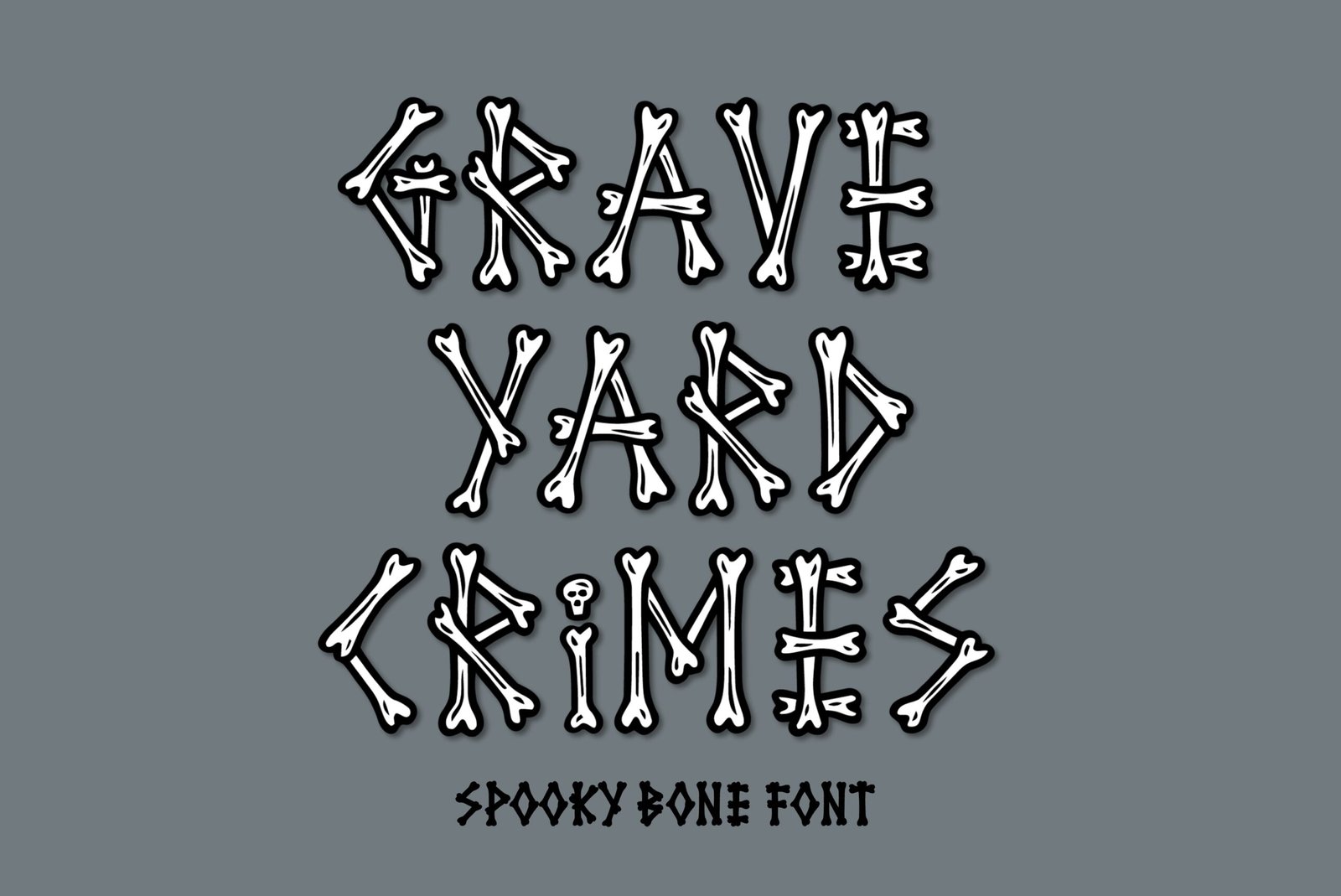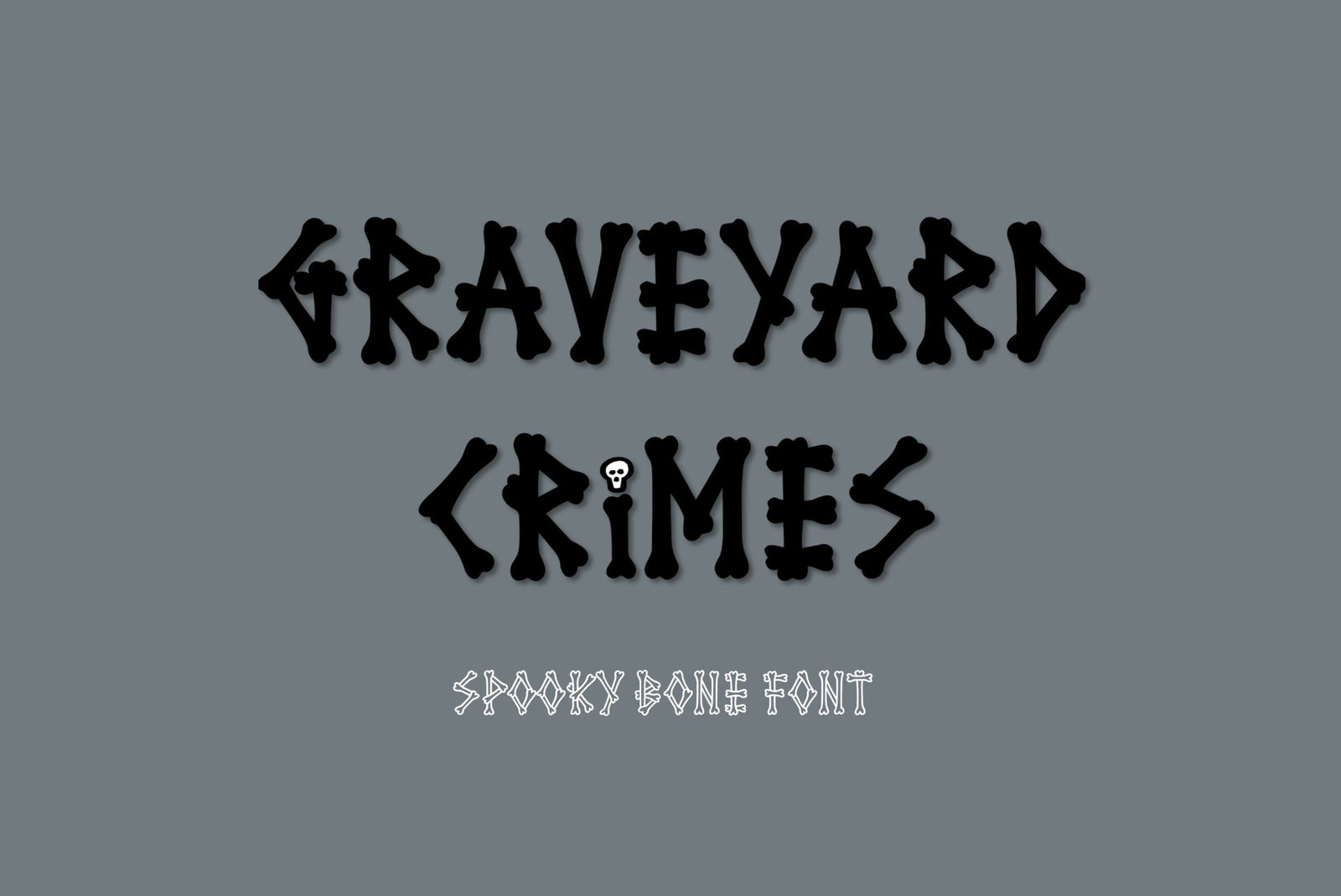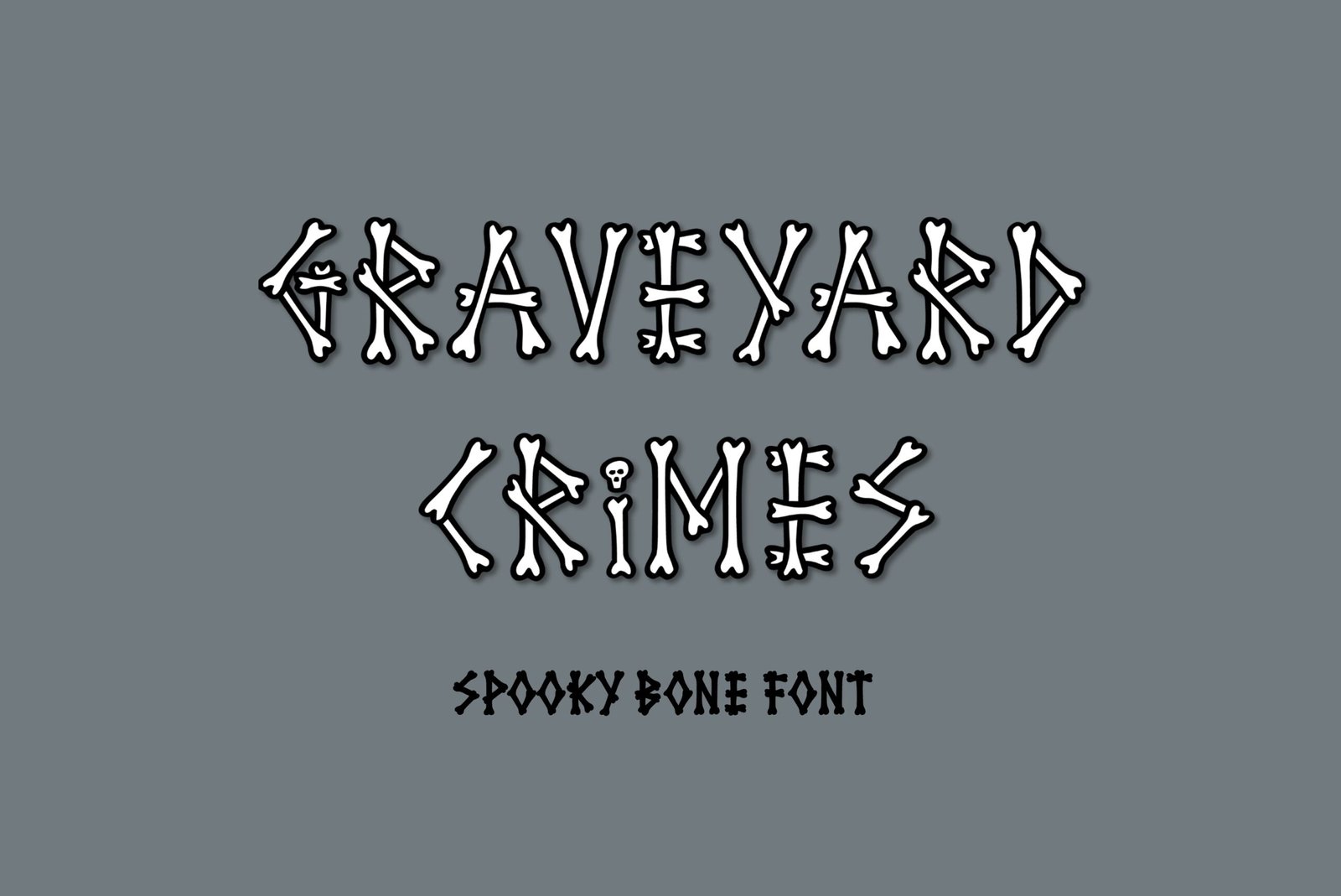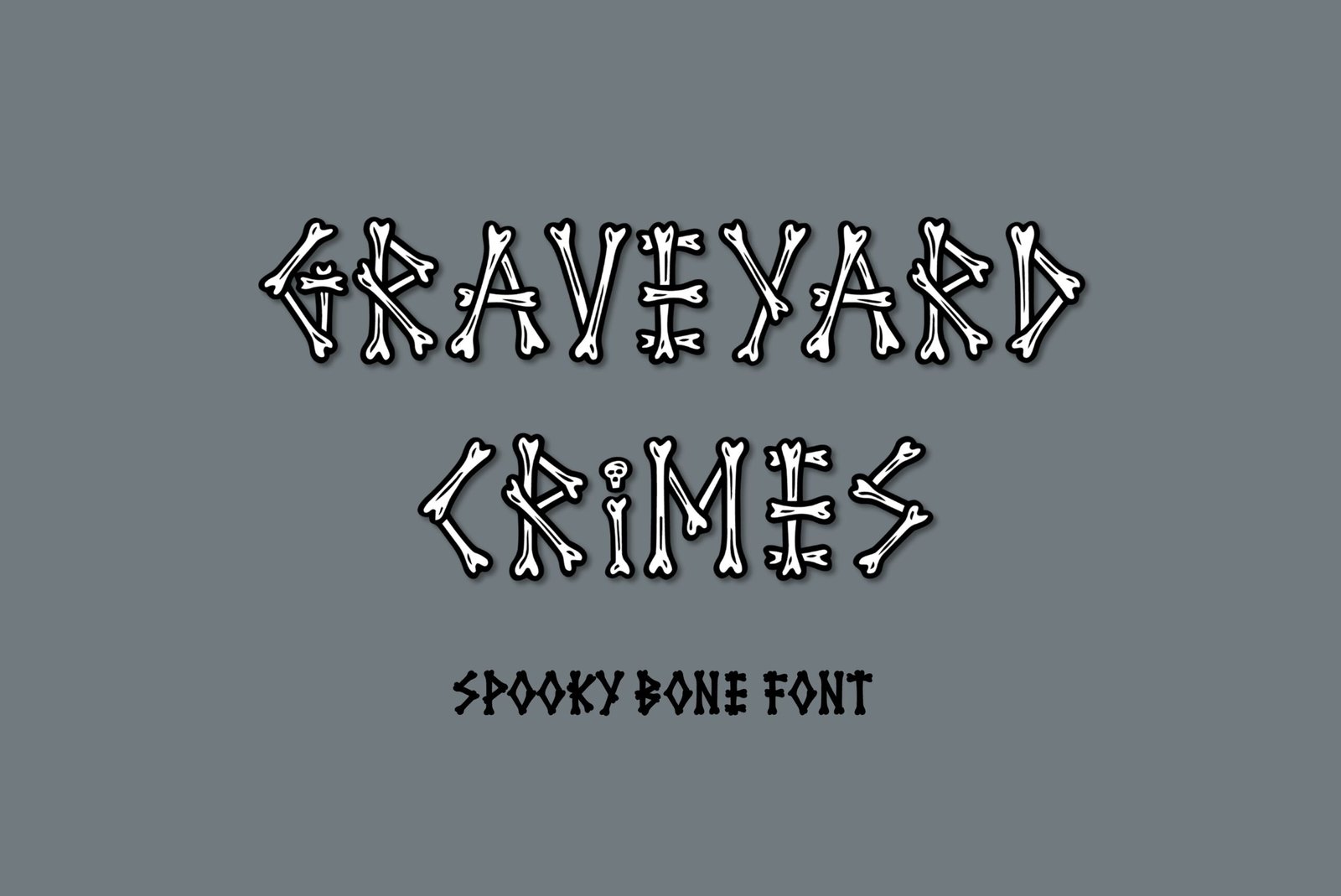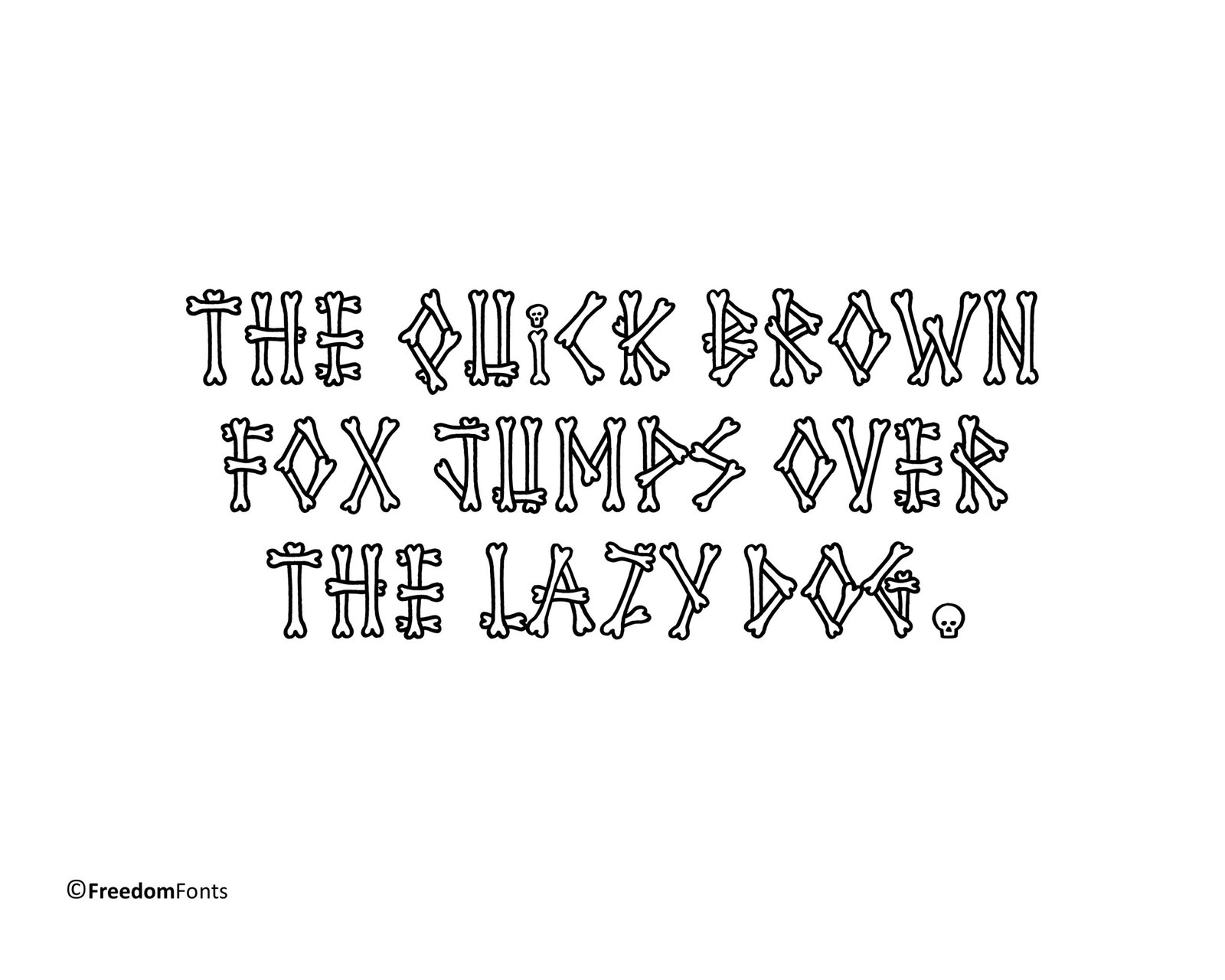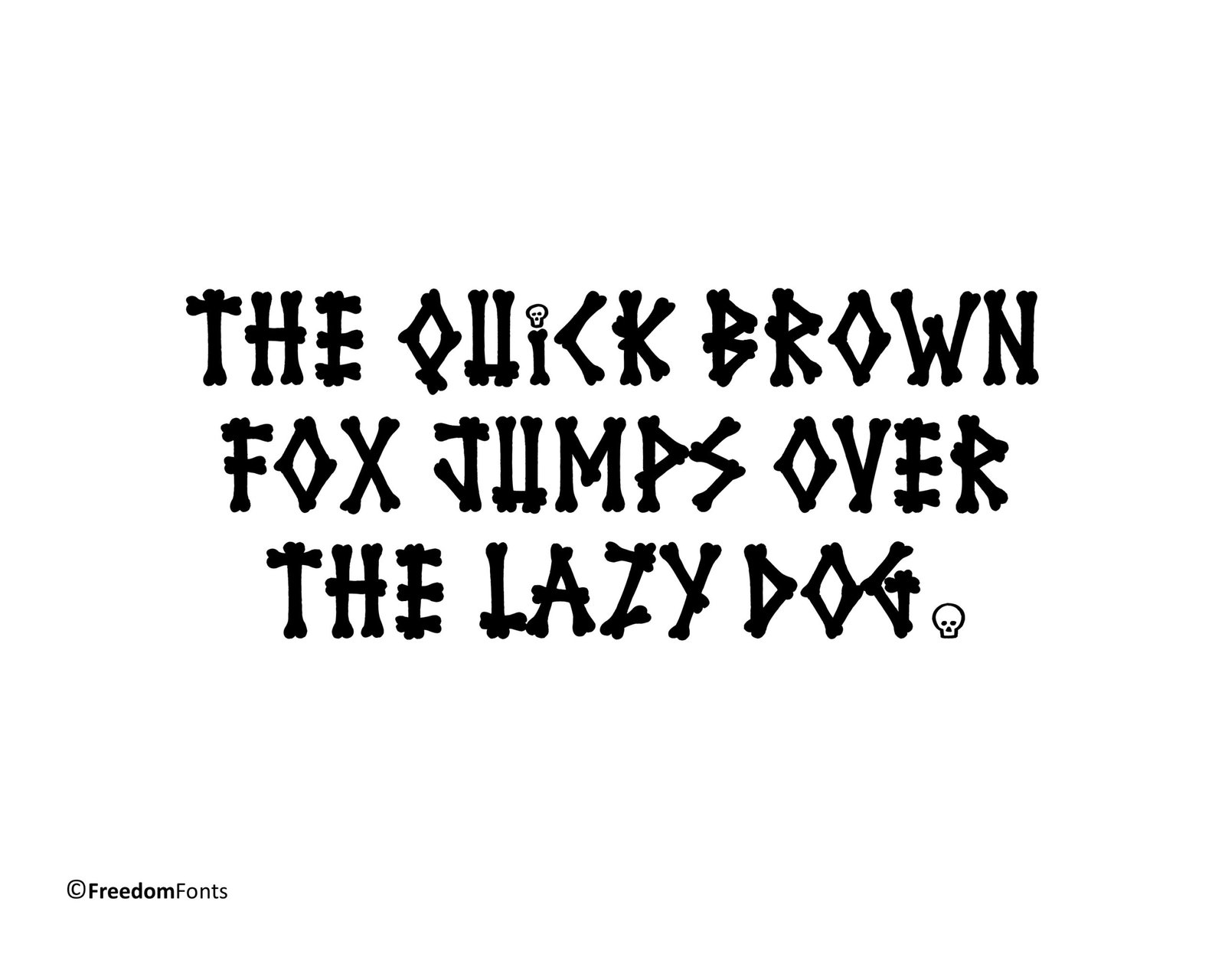
Graveyard Crimes Font
Spooky Bones font. “Graveyard Crimes”. Perfect for advertising and display purposes, including banners, book covers, shirts, posters, logos and much more!
This is an ALL CAPS font, featuring numbers, characters, and punctuation. It comes in 3 styles, one with a little detail on the bones, one without and one all black.